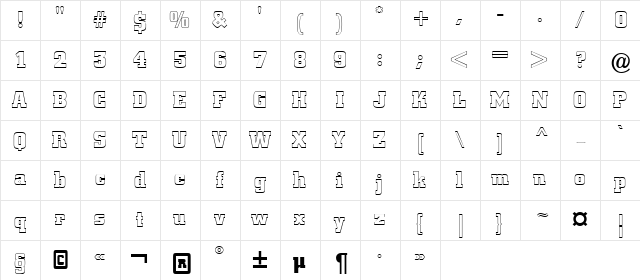
a_CityNovaOtl Bold Regular
Design Context for a_CityNovaOtl Bold Typeface
a_CityNovaOtl Bold offers clean, dependable letterforms without strong stylistic allegiance, making it a practical choice for designers who need flexibility. Its bold stroke weight gives it real presence on the page.